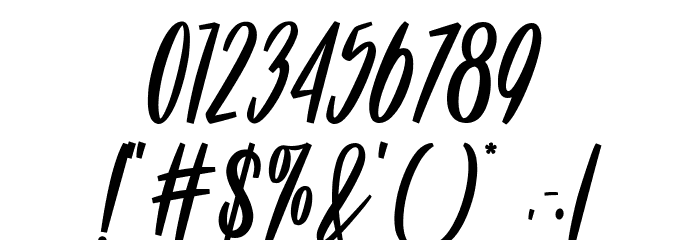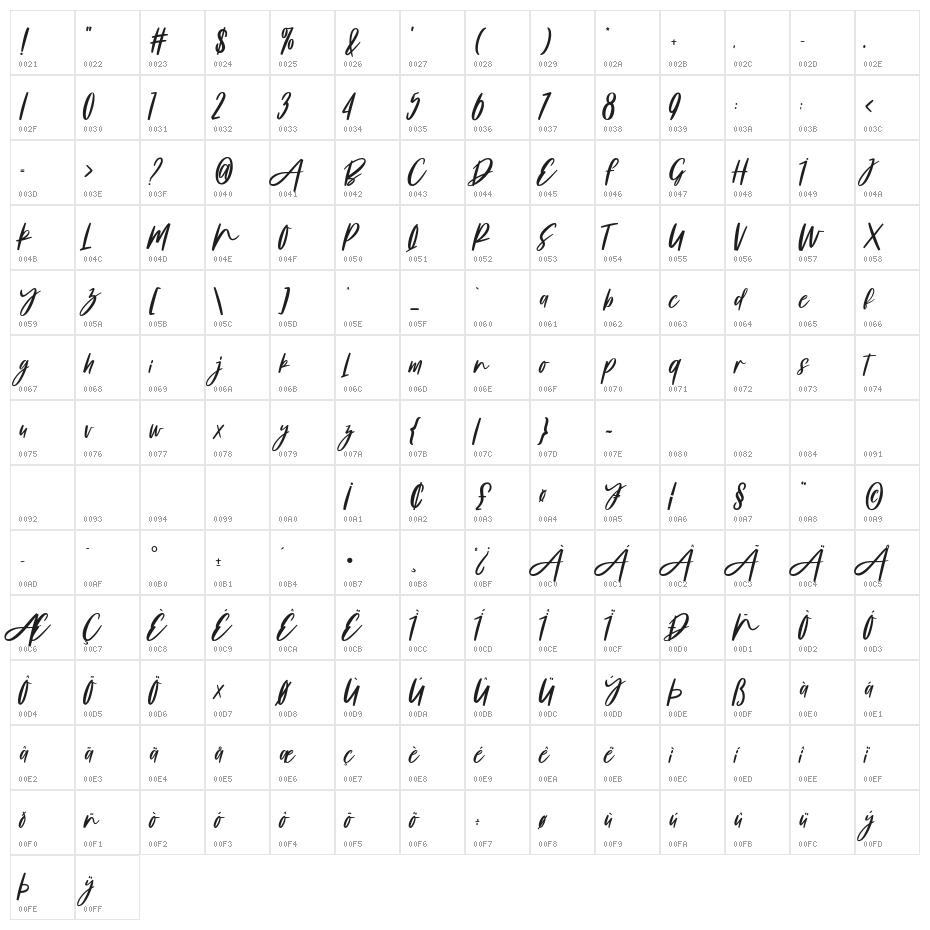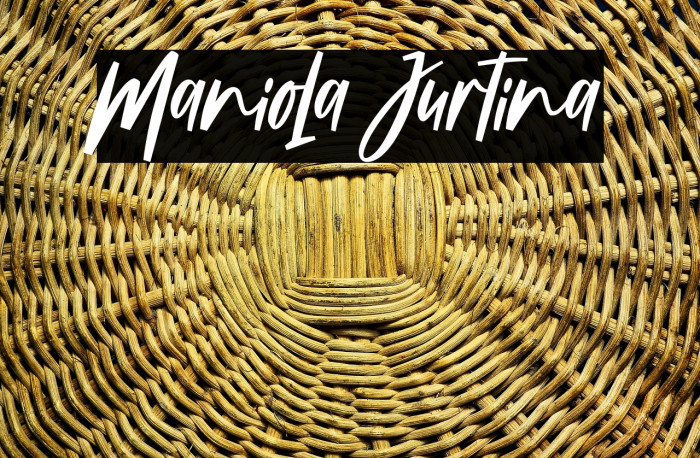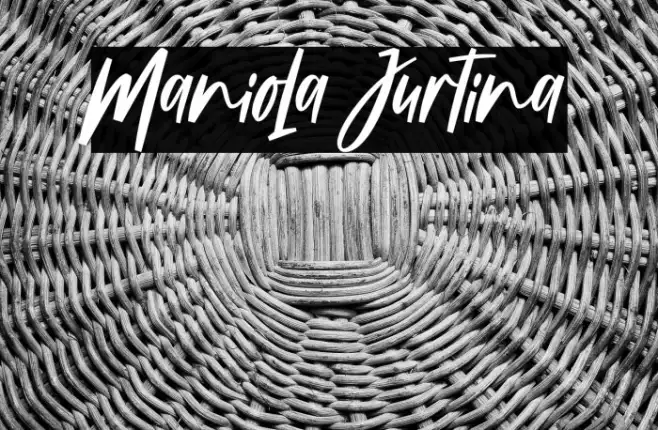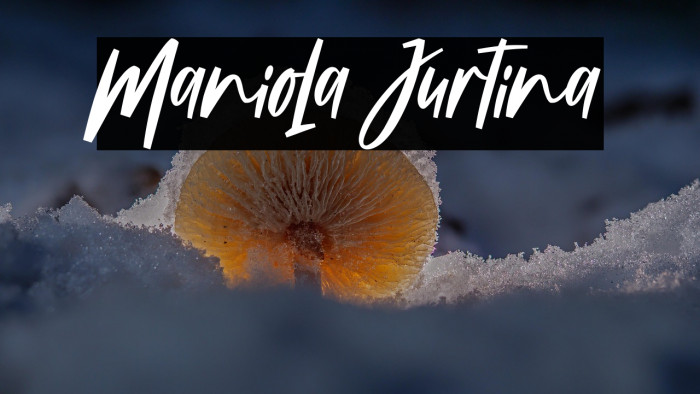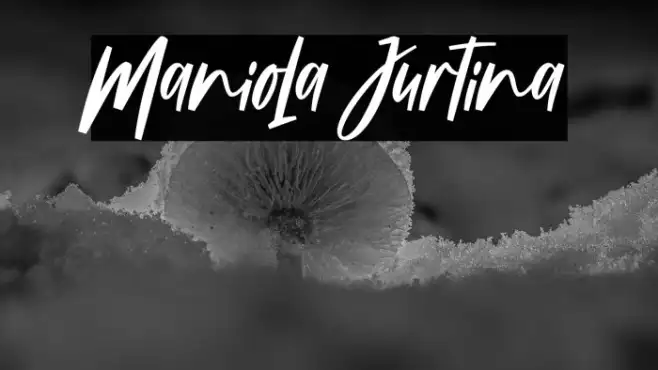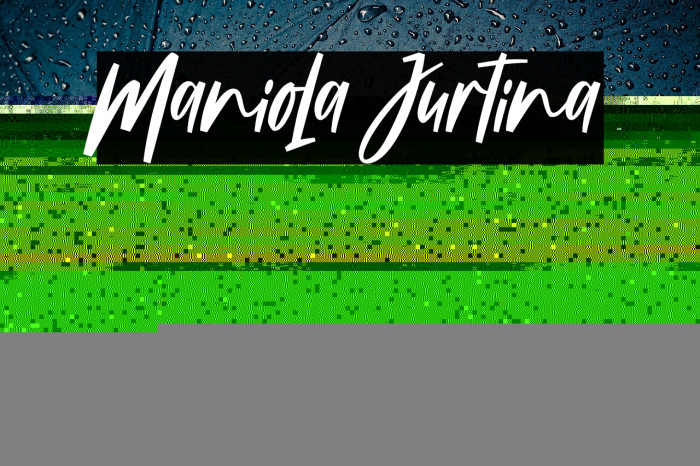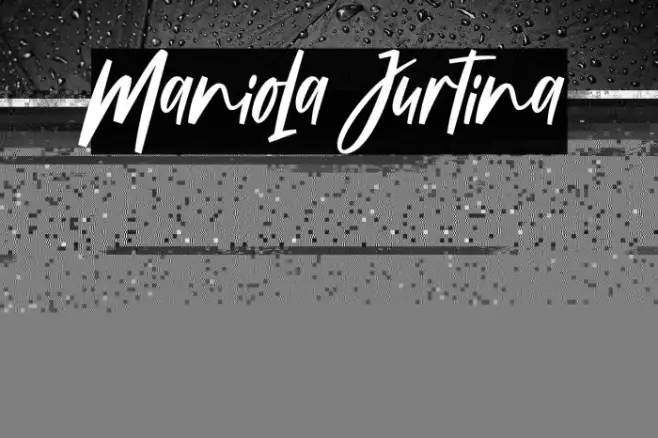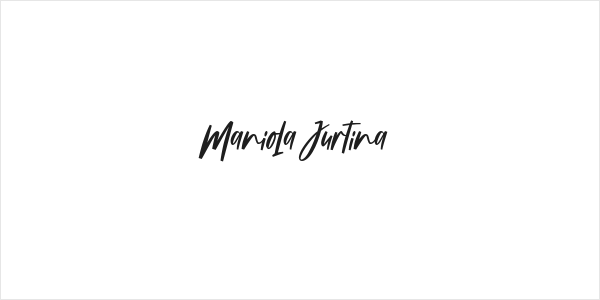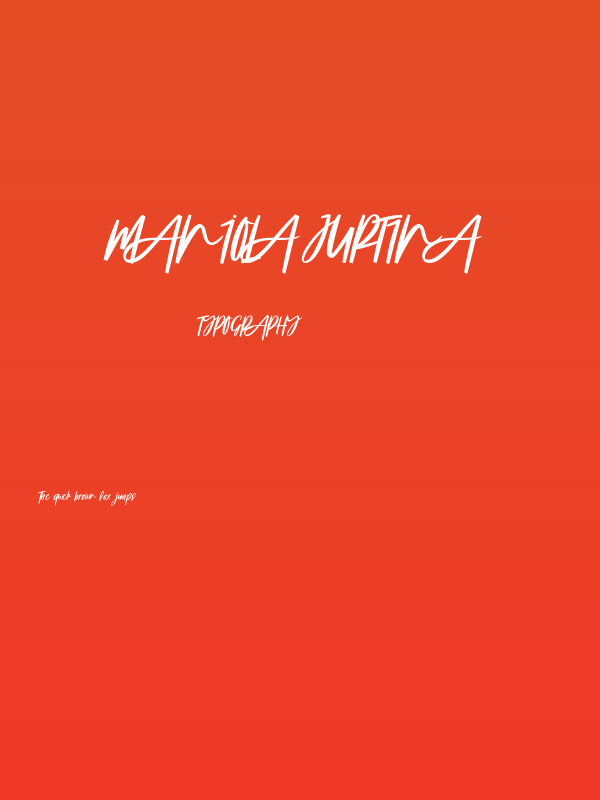
Maniola Jurtina Font
Maniola Jurtina Description
This font features a dynamic and expressive handwritten style, characterized by its fluid and energetic strokes. The uppercase letters are bold and slightly slanted, giving a sense of motion and creativity. The lowercase letters maintain a consistent flow, complementing the uppercase with their smooth curves and loops. Numbers and special characters are crafted with the same lively flair, ensuring a cohesive look across all text elements. The overall appearance is both artistic and modern, making it suitable for projects that require a personal touch.
| Proposed Projects | Ideal for branding, invitations, greeting cards, and social media graphics where a personal and artistic touch is desired. |